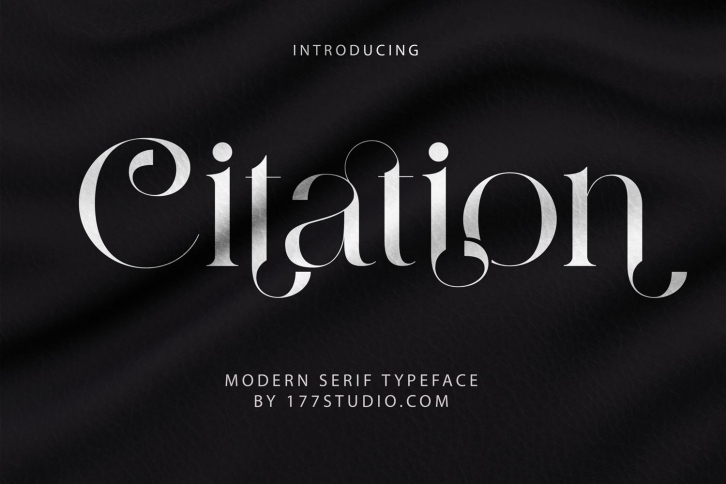
Citation is a gorgeous font that was realeased on May 13, 2022. The font can be used in many style contexts and design environments. Perfect for invitations, magazines, websites, logos, and more! It was designed by 177Studio and the file size is 21.26 MB. Thanks for checking out this font!